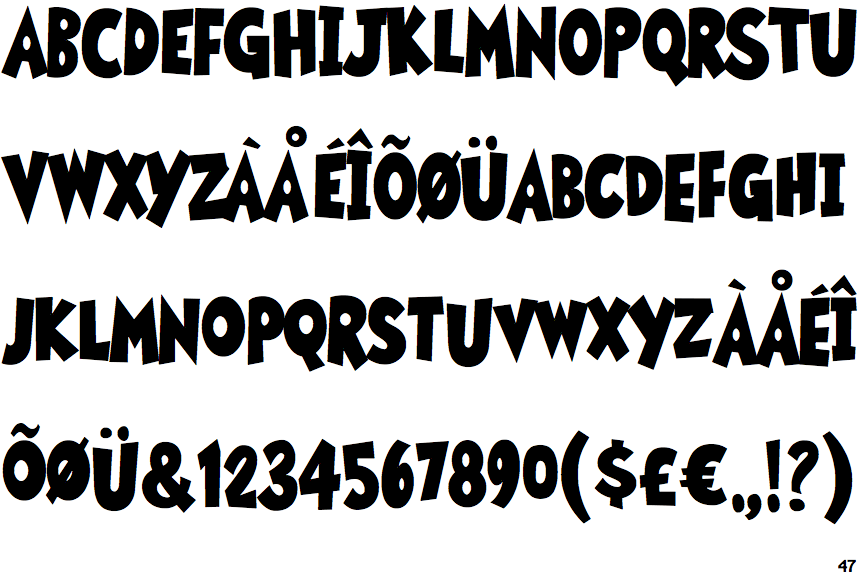
Graham Cracker Jf Font Free Download . Discover a world of captivating typography for your creative projects. Using a catalog of over 990k+ fonts (commercial or free) and our font finder ai, we are able to display over 60 fonts for every image uploaded. Share your examples of graham cracker jf in use. All font, decorative, font family, hipster, otf, retro fonts, roman, ttf suited to your project, and it. The font was inspired by an old 1960s movie poster, and contains over 175 interlocking ligatures that. The font was inspired by a 1960s movie poster and features over 175 interwoven. Explore graham cracker fonts at myfonts. Thousands of designers (famous or not) use the image font detection system to find a font or similar free fonts from an image. Graham cracker is a fun, cartoony and childlike font that can’t help but fill you with happiness! Download typeface graham cracker free.
All font, decorative, font family, hipster, otf, retro fonts, roman, ttf suited to your project, and it. Download typeface graham cracker free. Share your examples of graham cracker jf in use. Discover a world of captivating typography for your creative projects. Graham cracker is a fun, cartoony and childlike font that can’t help but fill you with happiness! Thousands of designers (famous or not) use the image font detection system to find a font or similar free fonts from an image. The font was inspired by a 1960s movie poster and features over 175 interwoven. The font was inspired by an old 1960s movie poster, and contains over 175 interlocking ligatures that. Using a catalog of over 990k+ fonts (commercial or free) and our font finder ai, we are able to display over 60 fonts for every image uploaded. Explore graham cracker fonts at myfonts.
Graham Cracker Jf Font Free Download The font was inspired by an old 1960s movie poster, and contains over 175 interlocking ligatures that. The font was inspired by an old 1960s movie poster, and contains over 175 interlocking ligatures that. Using a catalog of over 990k+ fonts (commercial or free) and our font finder ai, we are able to display over 60 fonts for every image uploaded. The font was inspired by a 1960s movie poster and features over 175 interwoven. Discover a world of captivating typography for your creative projects. Download typeface graham cracker free. Thousands of designers (famous or not) use the image font detection system to find a font or similar free fonts from an image. Share your examples of graham cracker jf in use. Graham cracker is a fun, cartoony and childlike font that can’t help but fill you with happiness! All font, decorative, font family, hipster, otf, retro fonts, roman, ttf suited to your project, and it. Explore graham cracker fonts at myfonts.